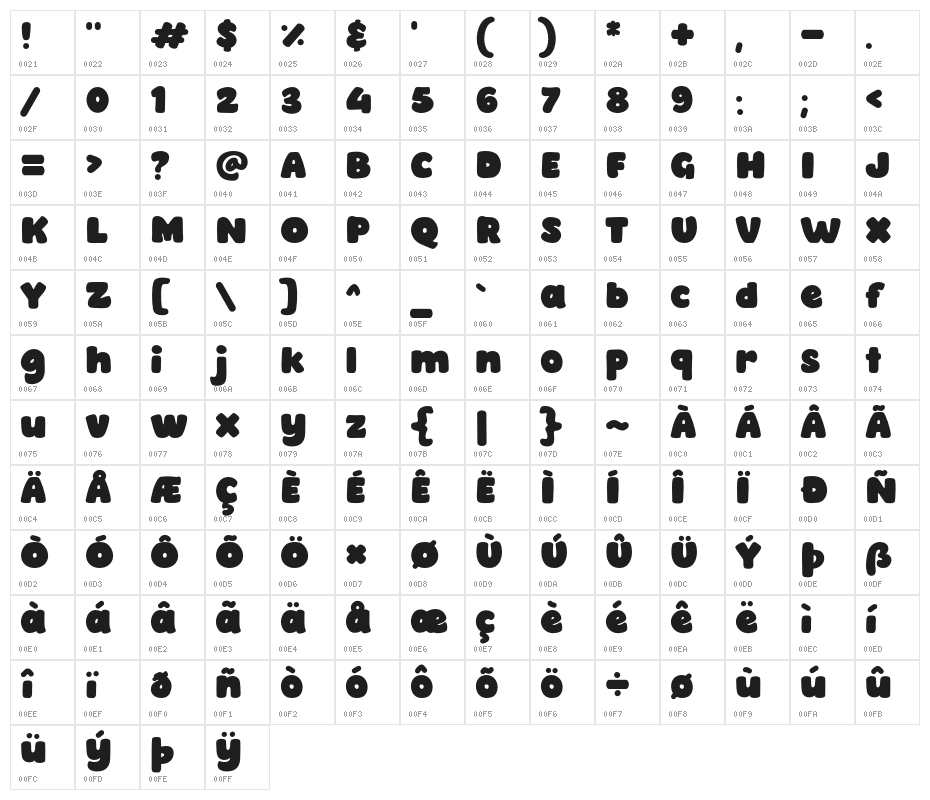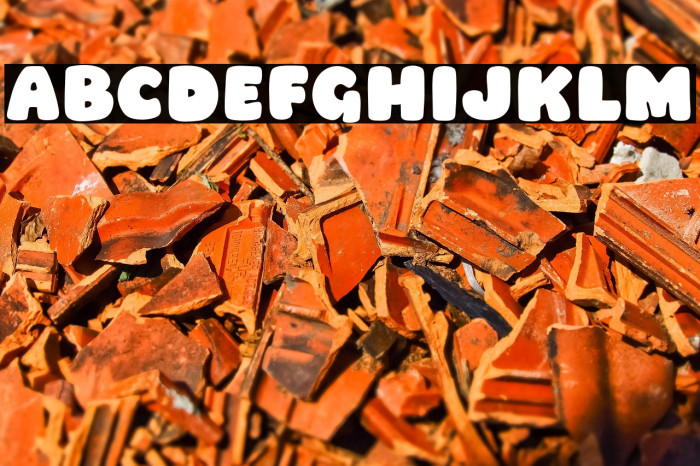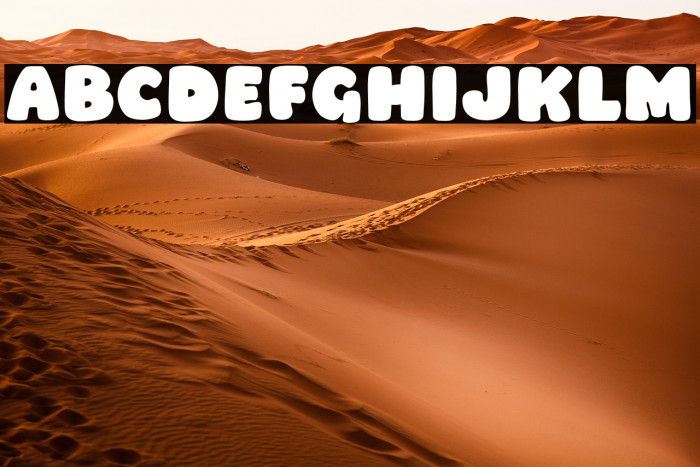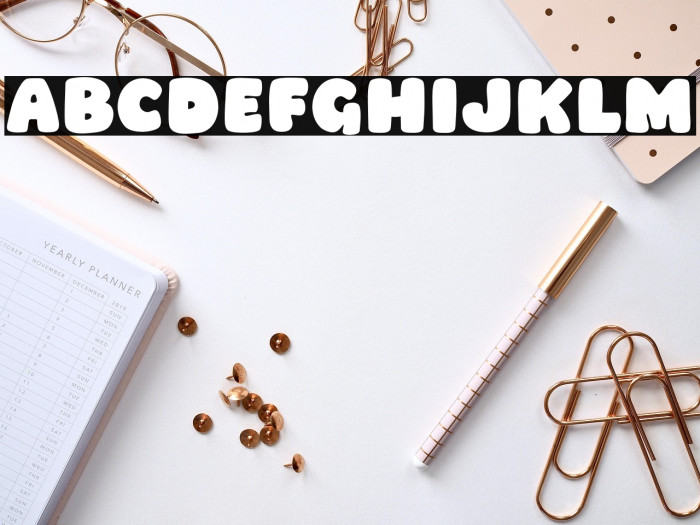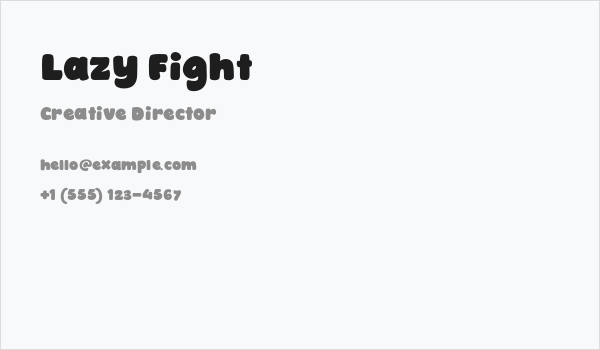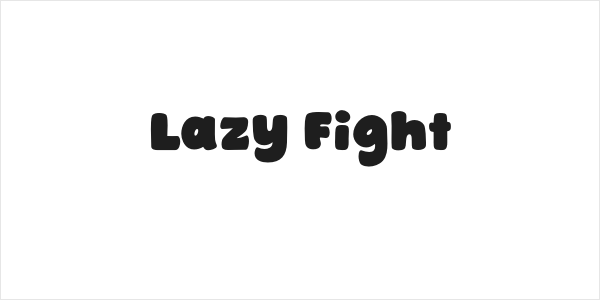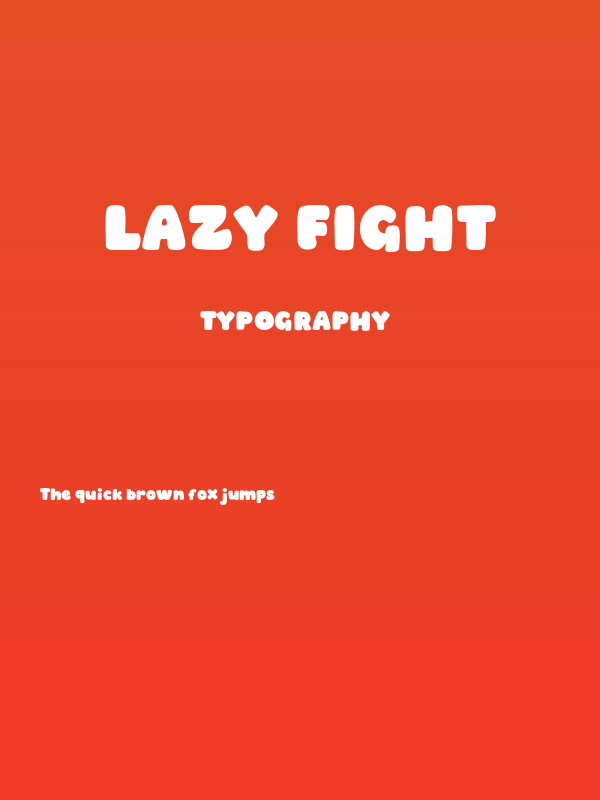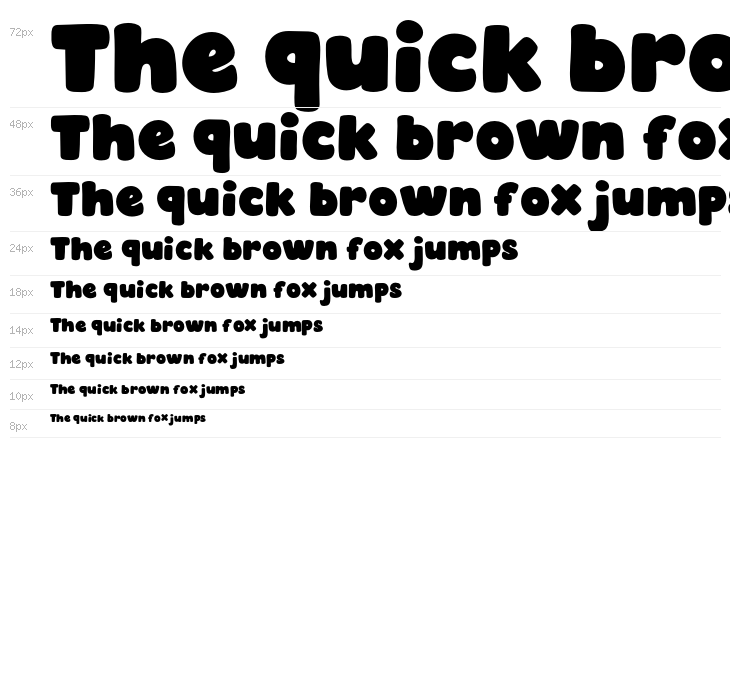
Lazy Fight Font
Lazy Fight Description
This playful and bold font features rounded, thick characters that convey a sense of fun and approachability. The letters are uniformly wide, with a consistent stroke thickness that gives the font a cohesive look. The characters have a slightly inflated appearance, adding to their whimsical charm. This style is particularly effective in capturing attention and conveying a friendly, informal tone. The numbers and special characters maintain the same playful aesthetic, ensuring a harmonious overall appearance.
| Overall Style | Playful |
| Proposed Projects | Ideal for children's books, playful branding, posters, and casual event invitations. |